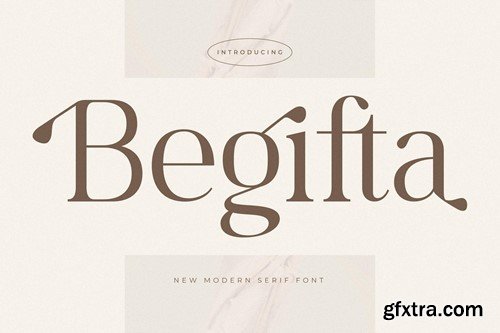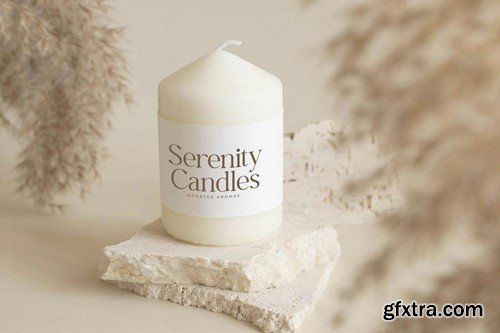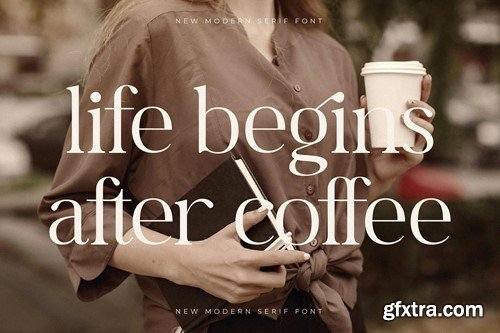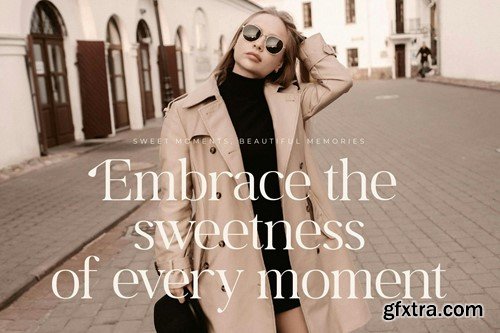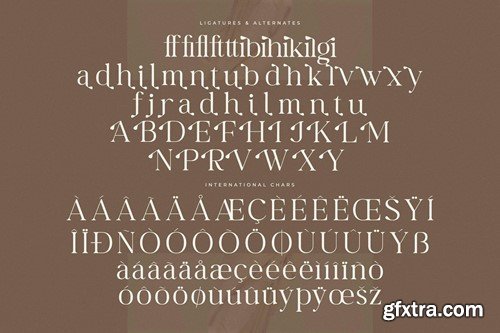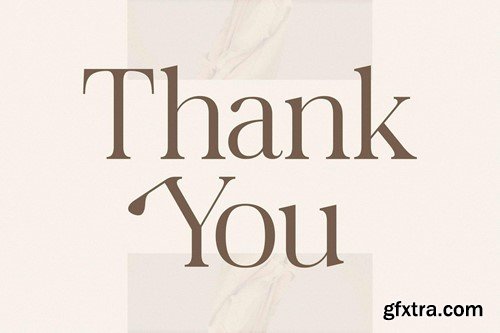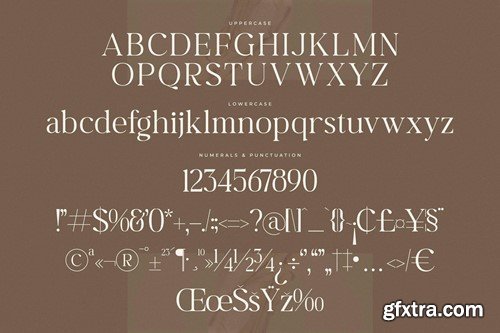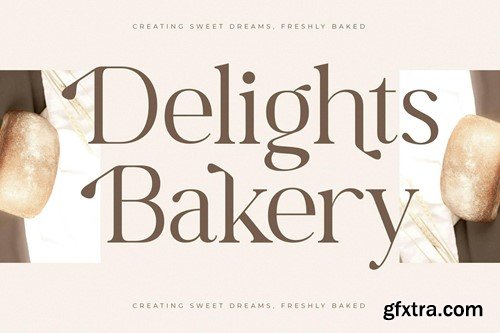
Begifta New Modern Serif Font 4SP6PSF
Begifta New Modern Serif Font
Hi ladies & gentlemen, this is one of our fonts suitable to complement your digital and printed creative products. This font is perfect for posters, social media posts, branding, personal projects, etc.